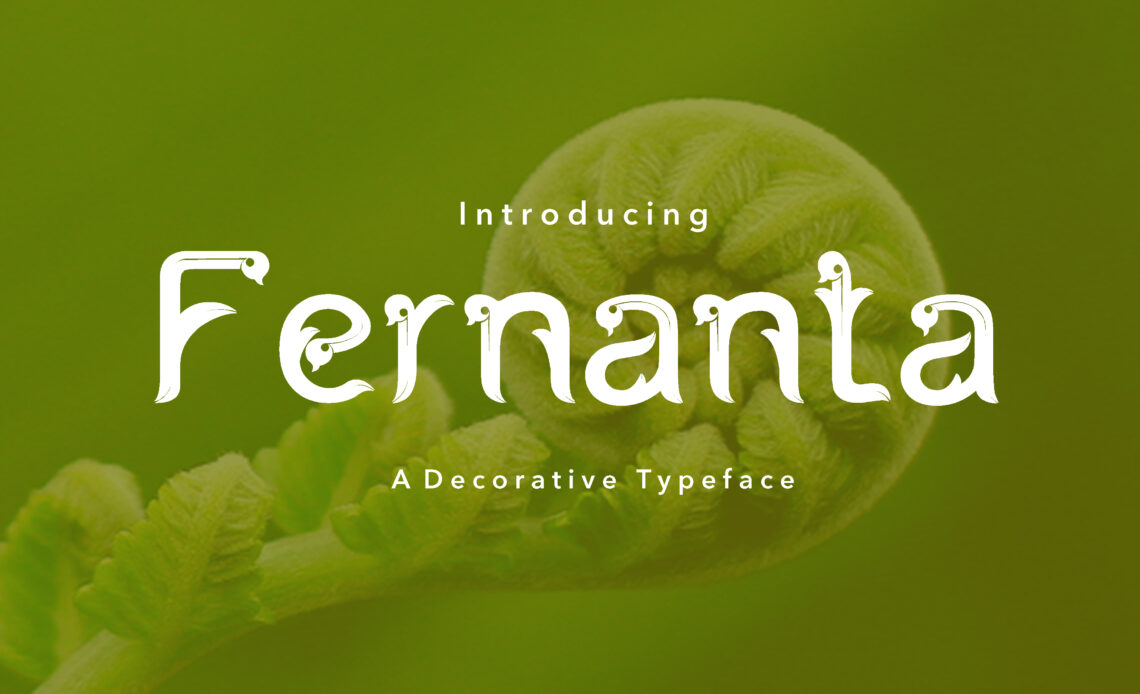
**Fernanta Font: A Cultural Masterpiece for Captivating Designs**
Immerse yourself in the rich tapestry of Indonesian culture with Fernanta Font, a decorative masterpiece that pays homage to the intricate ornamental motives of the Minangkabau people. Inspired by the traditional Kaluak Paku motif, Fernanta embodies a thoughtful fusion of heritage and modern aesthetics.
Crafted with meticulous precision, this font family exudes an air of elegance and sophistication, making it an ideal choice for display letters that command attention. Let Fernanta's graceful curves and captivating details transport your designs to a realm of cultural allure and visual enchantment.
Unleash your creativity and explore the boundless possibilities of Fernanta Font, where tradition meets modernity. Its versatility extends from eye-catching headlines to alluring logos, empowering you to weave a captivating narrative through your designs.
Embrace the cultural richness of Indonesia with Fernanta Font, a timeless masterpiece that will elevate your creations to new heights of beauty and cultural significance.